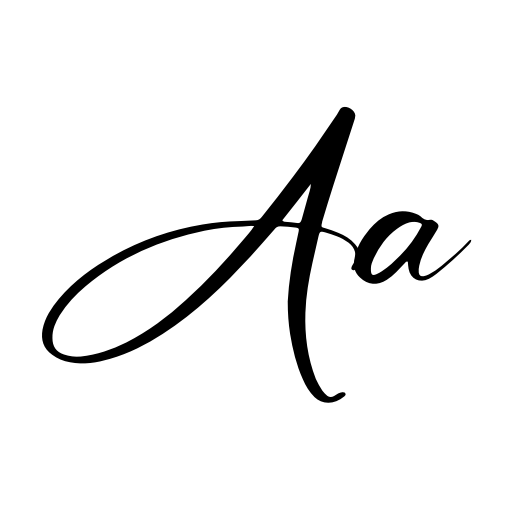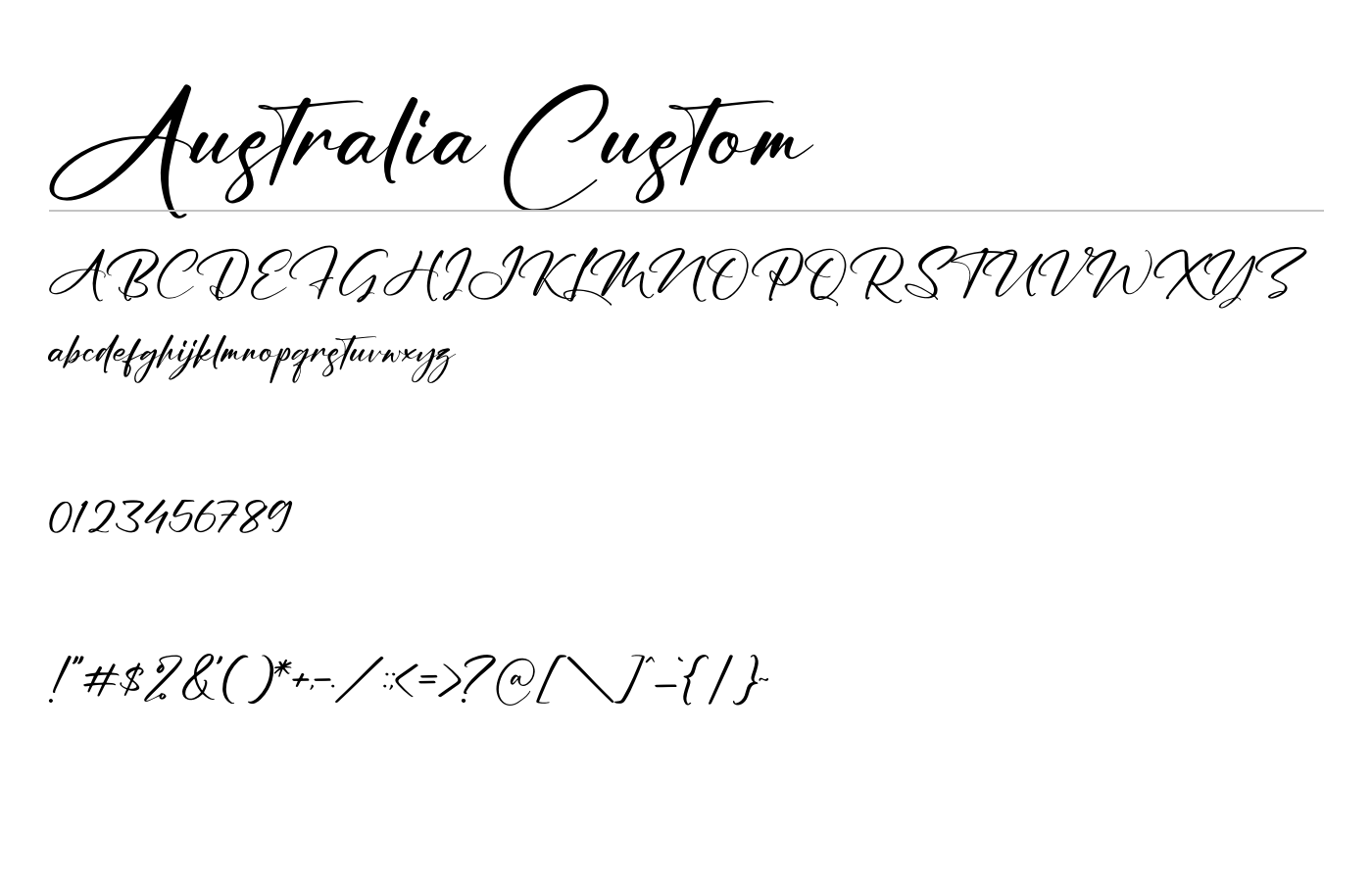
Australia Custom is an elegant script font with a delicate, hand-lettered feel that combines fluid strokes with a refined, slightly whimsical flair. Its graceful letterforms and moderate contrast make it perfect for luxury branding, invitations, and stylish editorial use, adding a personal and sophisticated touch to any design.
Australia Custom Font
About Australia Custom Font